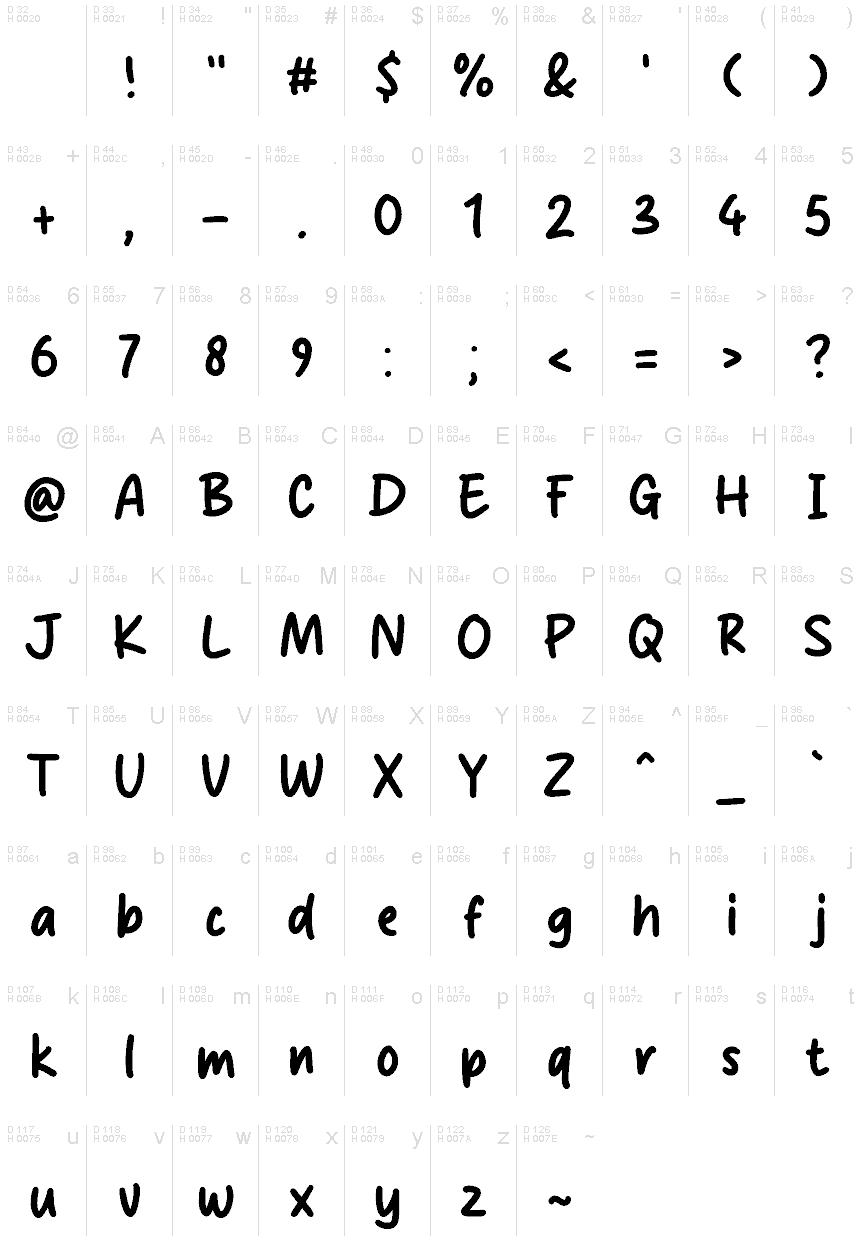
Lemon Fruit
\nLemon Fruit font is a free handwritten font designed by MJType. This font presents rounded and organically arranged characters that are sure to communicate friendliness and approachability. Its casual style, as opposed to formal, covers most tasks where written communication is not intended to be official. More important than anything else, the font can be described through two adjectives: readable and pleasant.
The handwriting typeface comes in handy for book covers (or pages), CVs/Resumes, methodology sections for scientific papers, cover letters, motivational quotes, flyers, invitation cards/wedding cards/luxury cards etc., invites for baby showers and bridal showers (or wishes), advent calendars and impressive/emotional captions on e-Commerce websites ment to “hook” users into buying certain products.